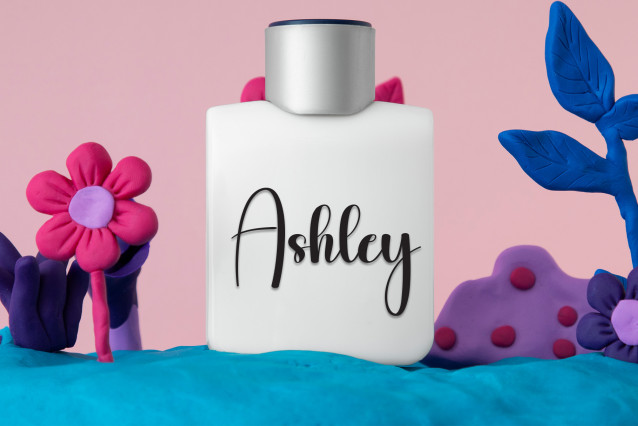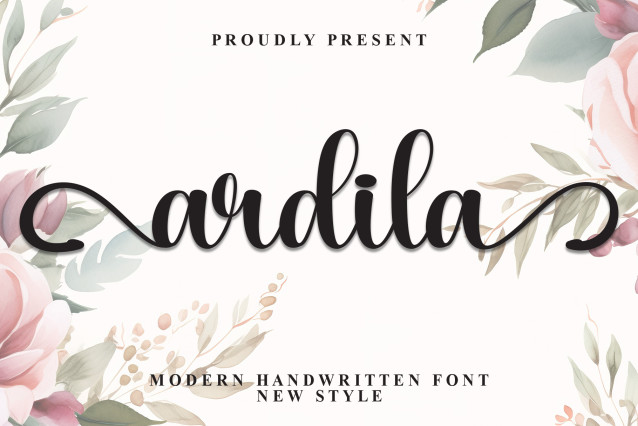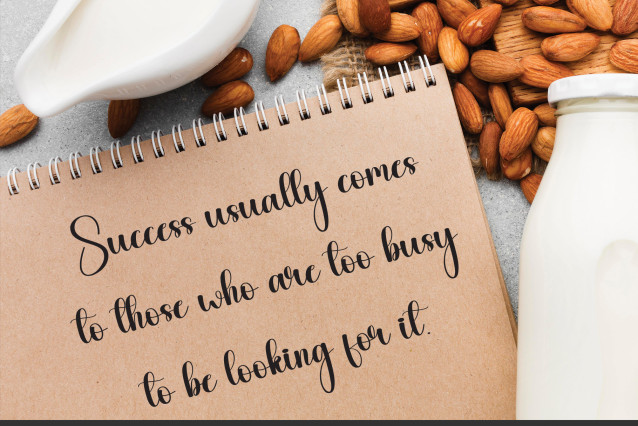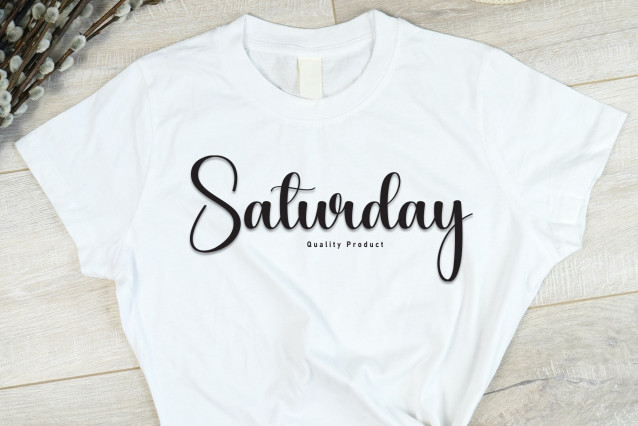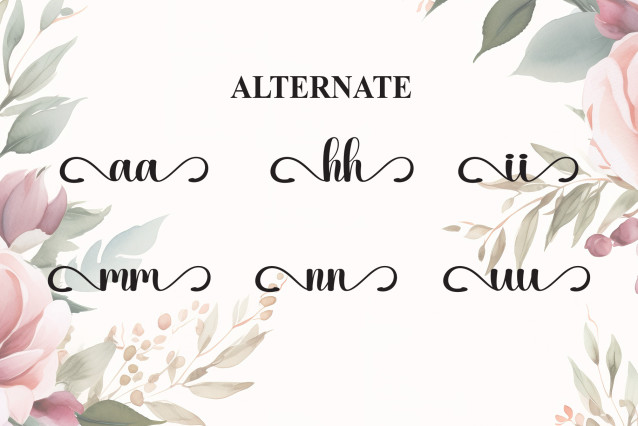
Ardila Handwritten Font – this is a sweet and friendly handwritten display font. Cute and fun, this font is ideal for writing wedding invitations, cards, or any other design that might need a playful touch!